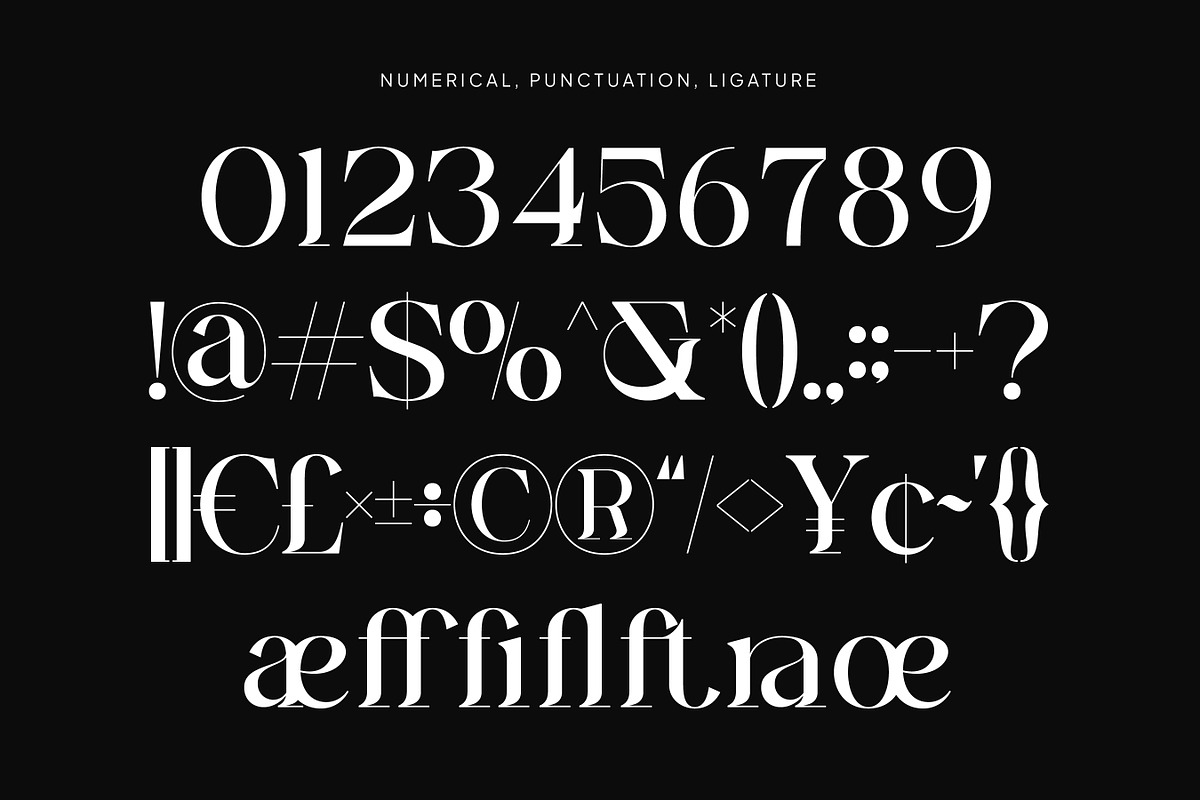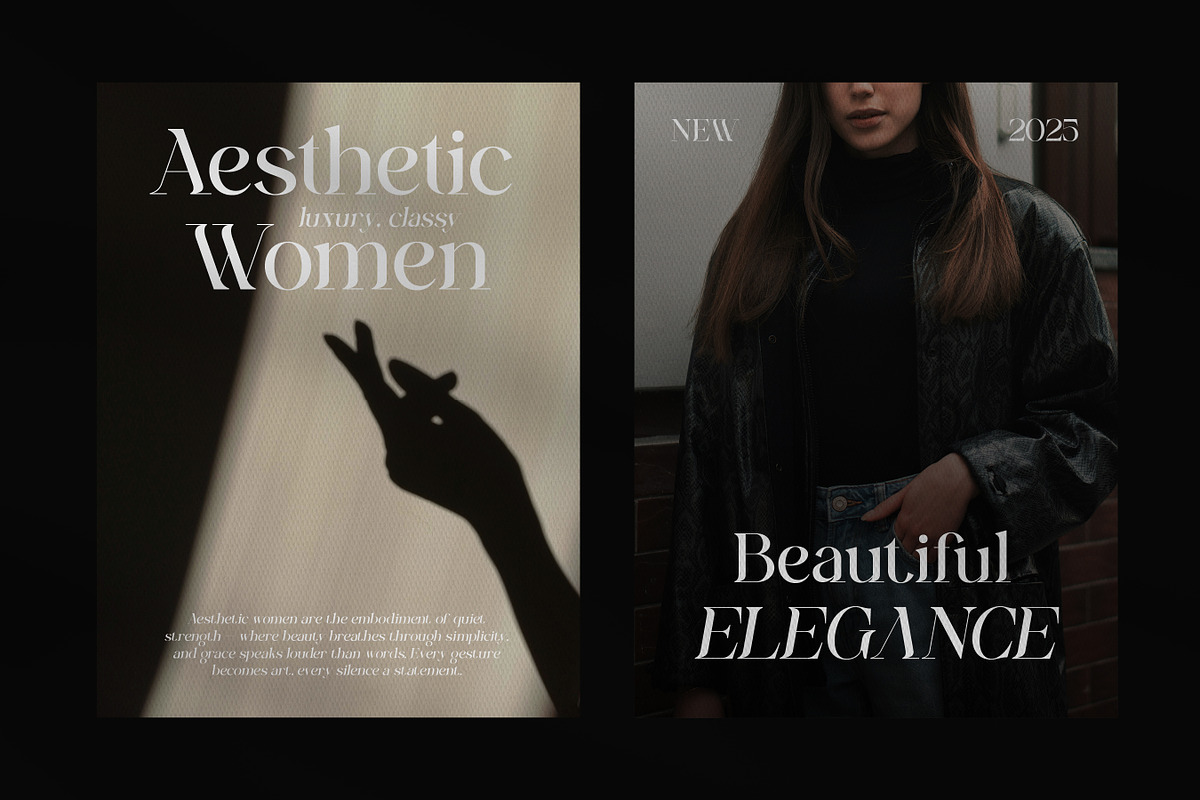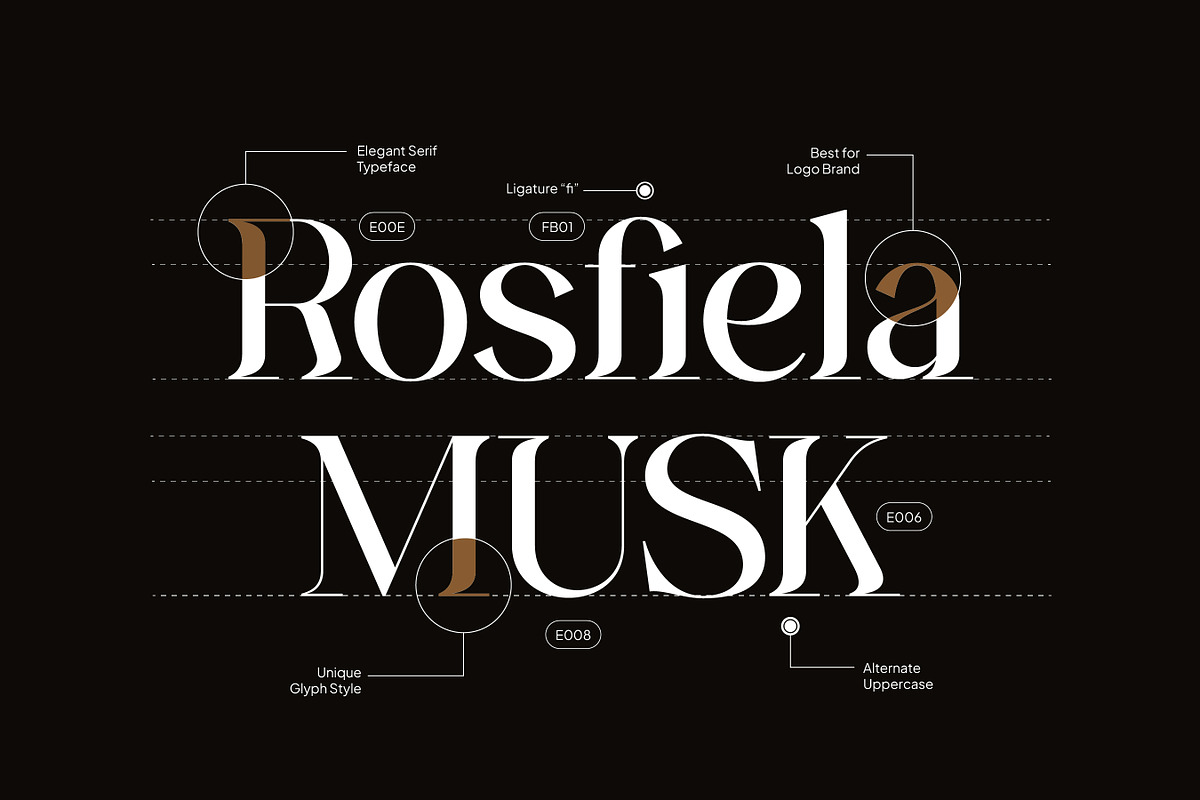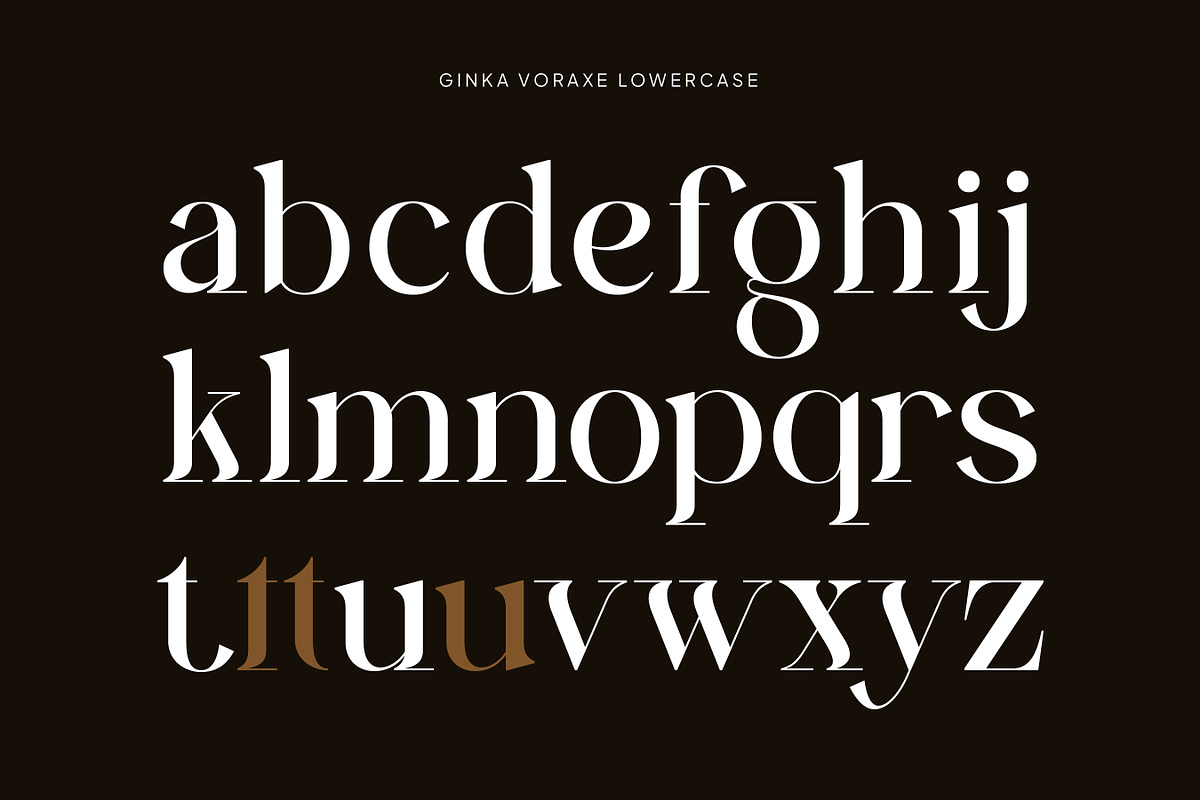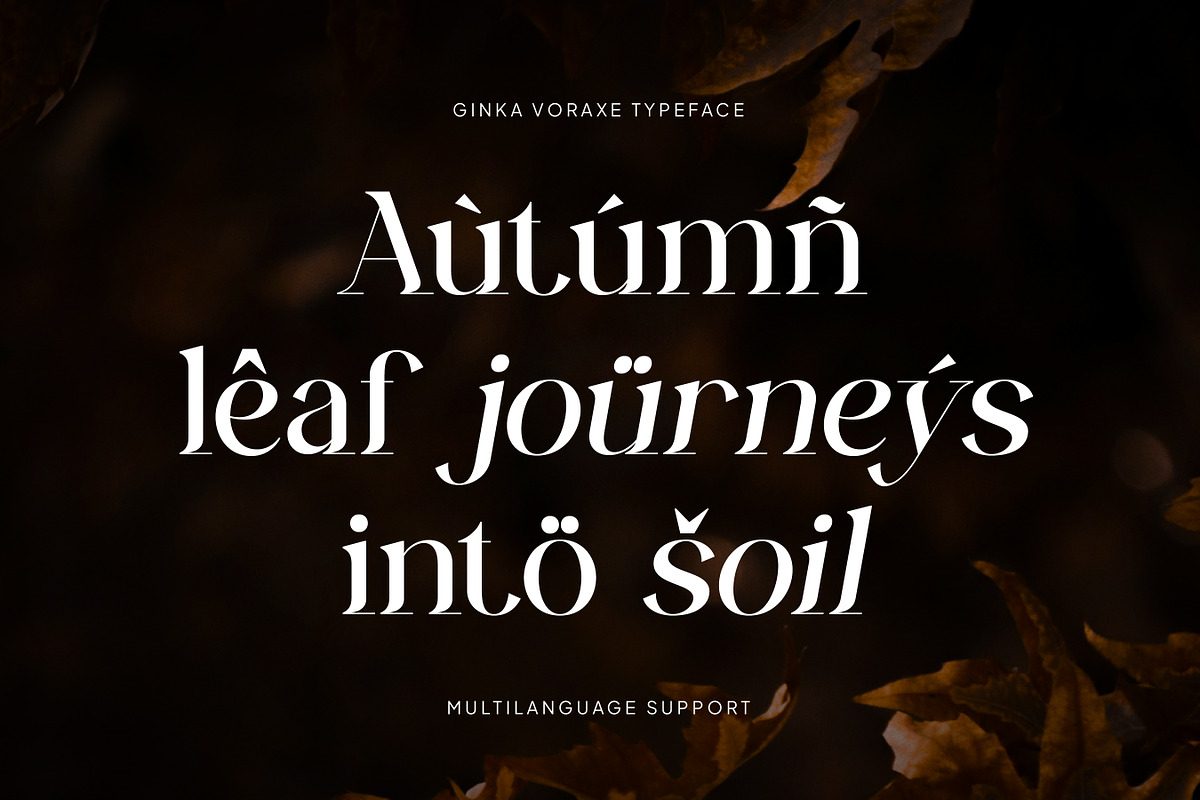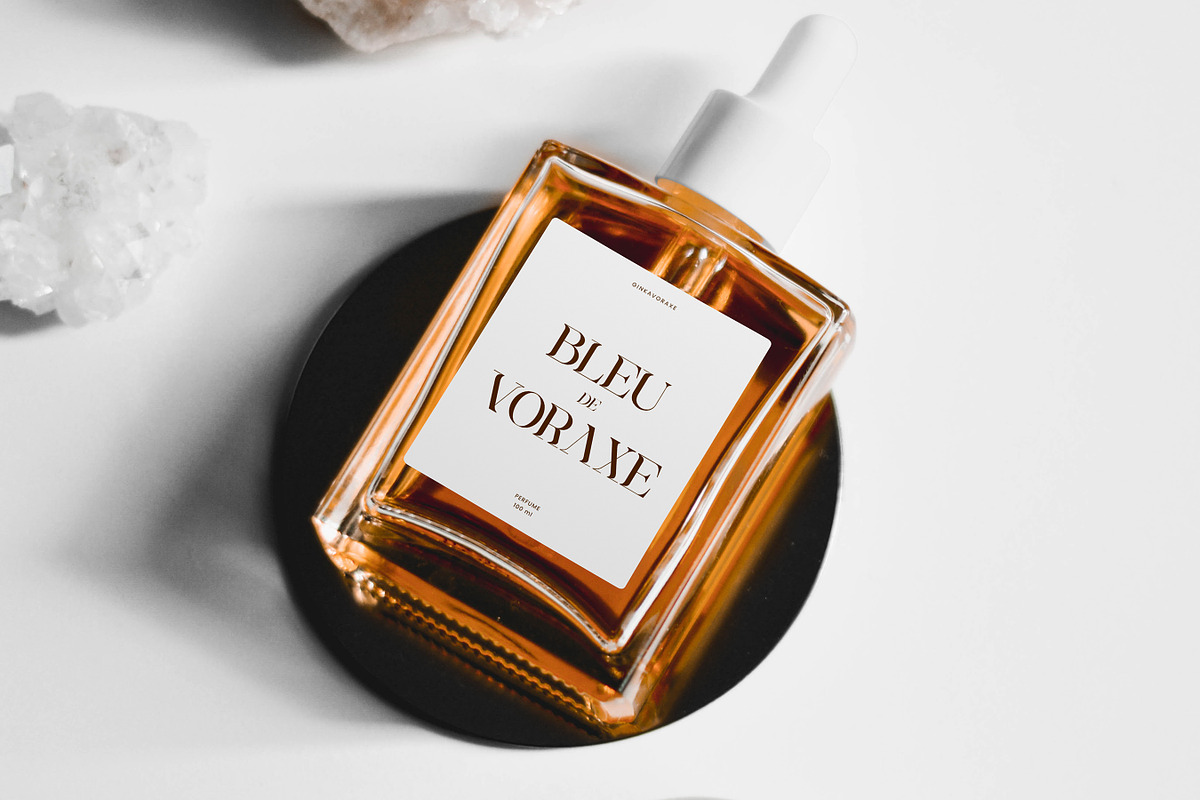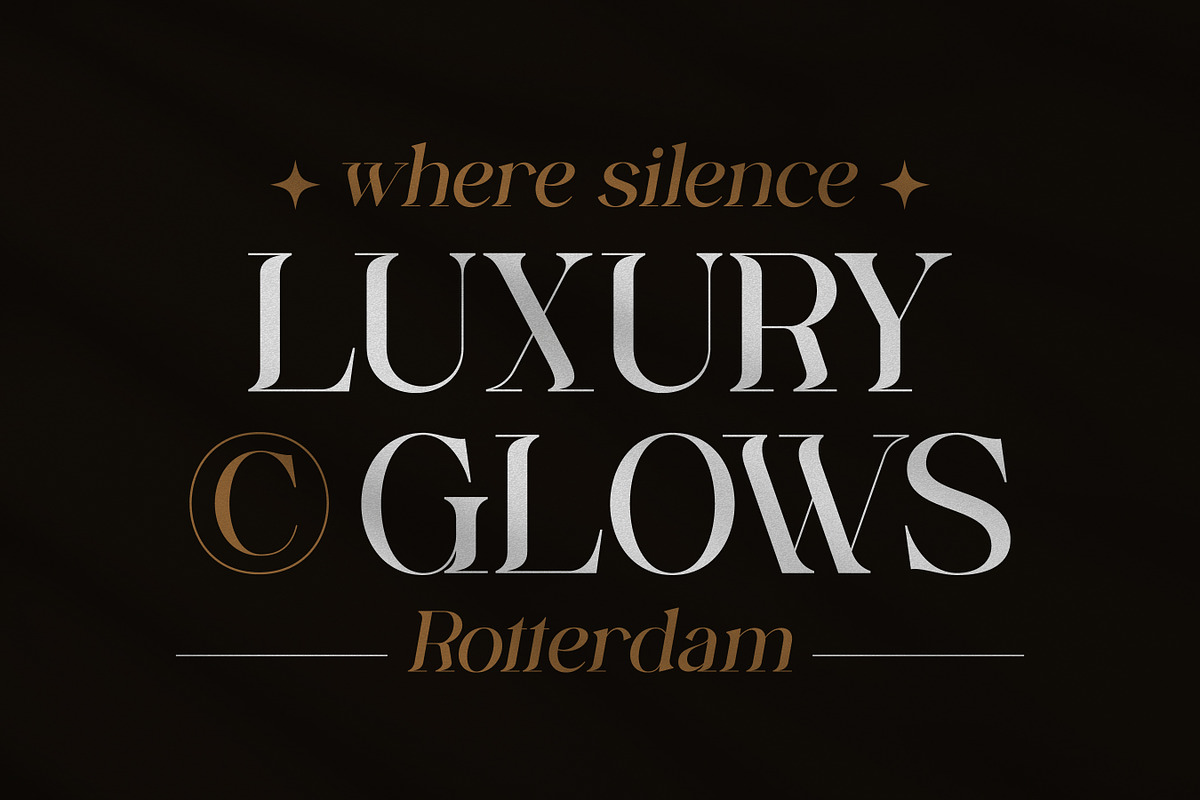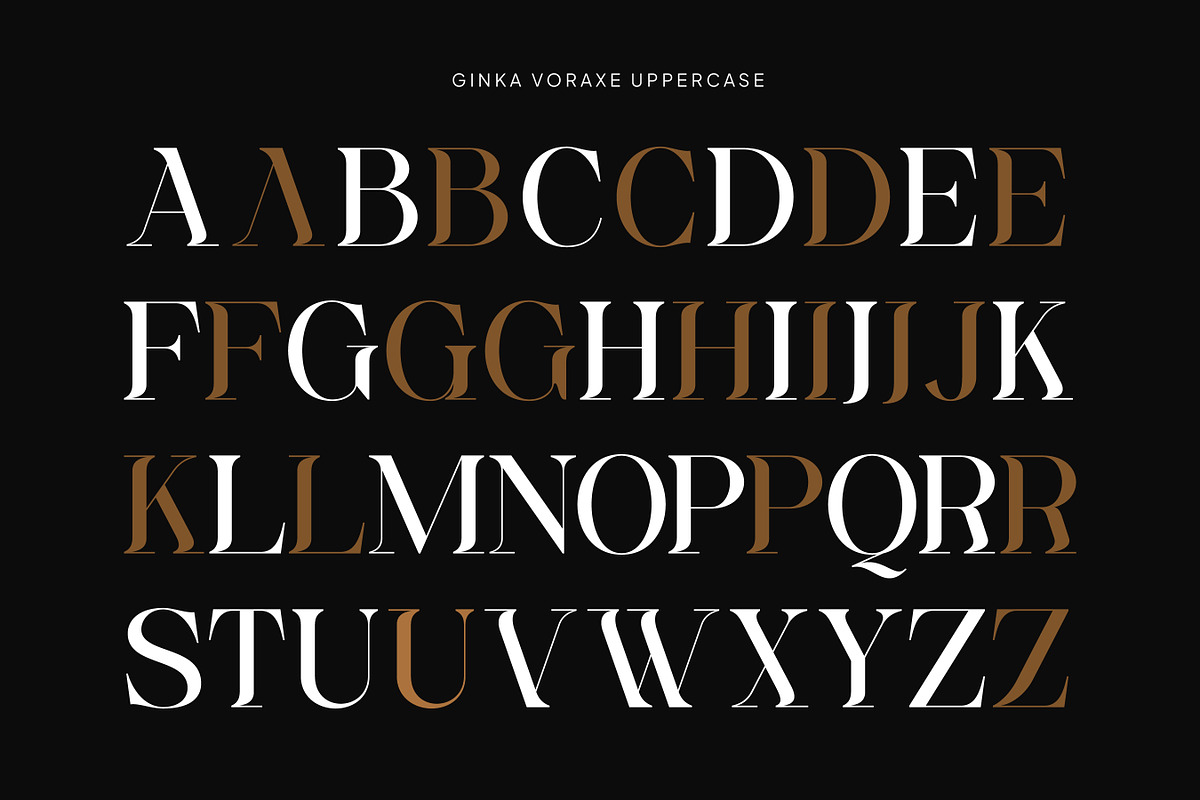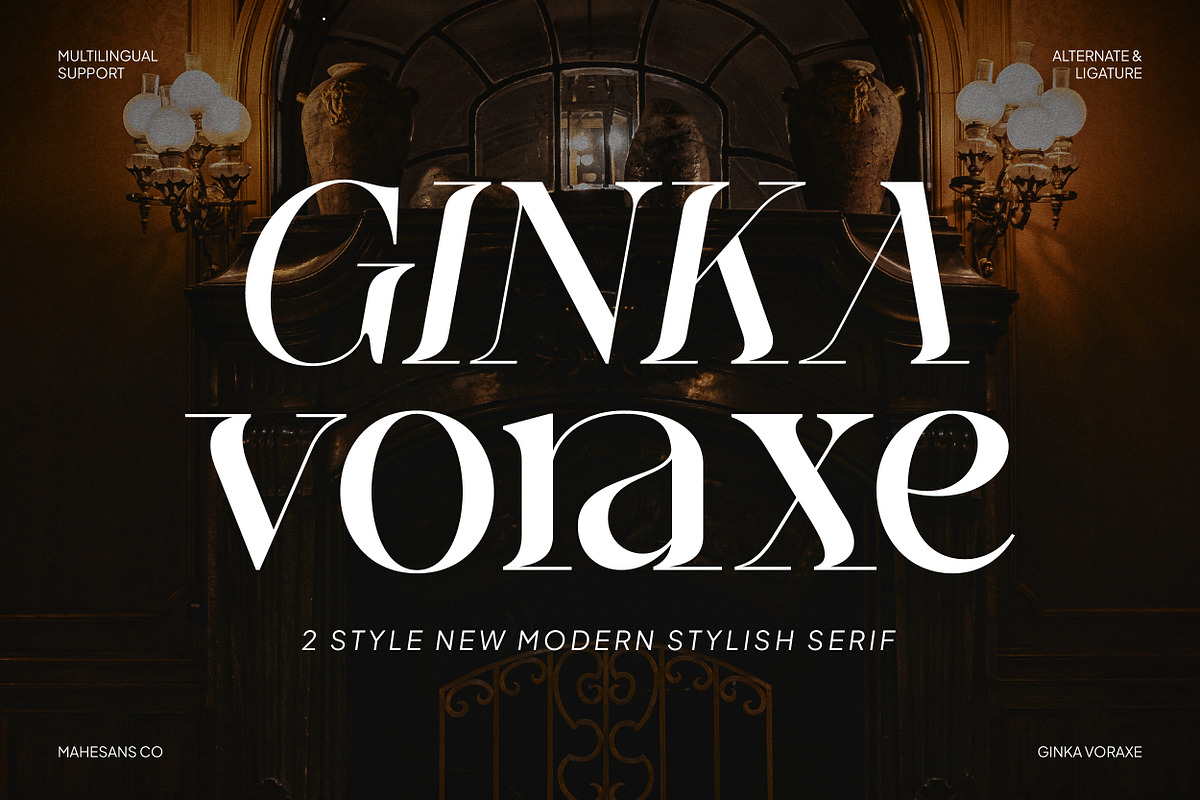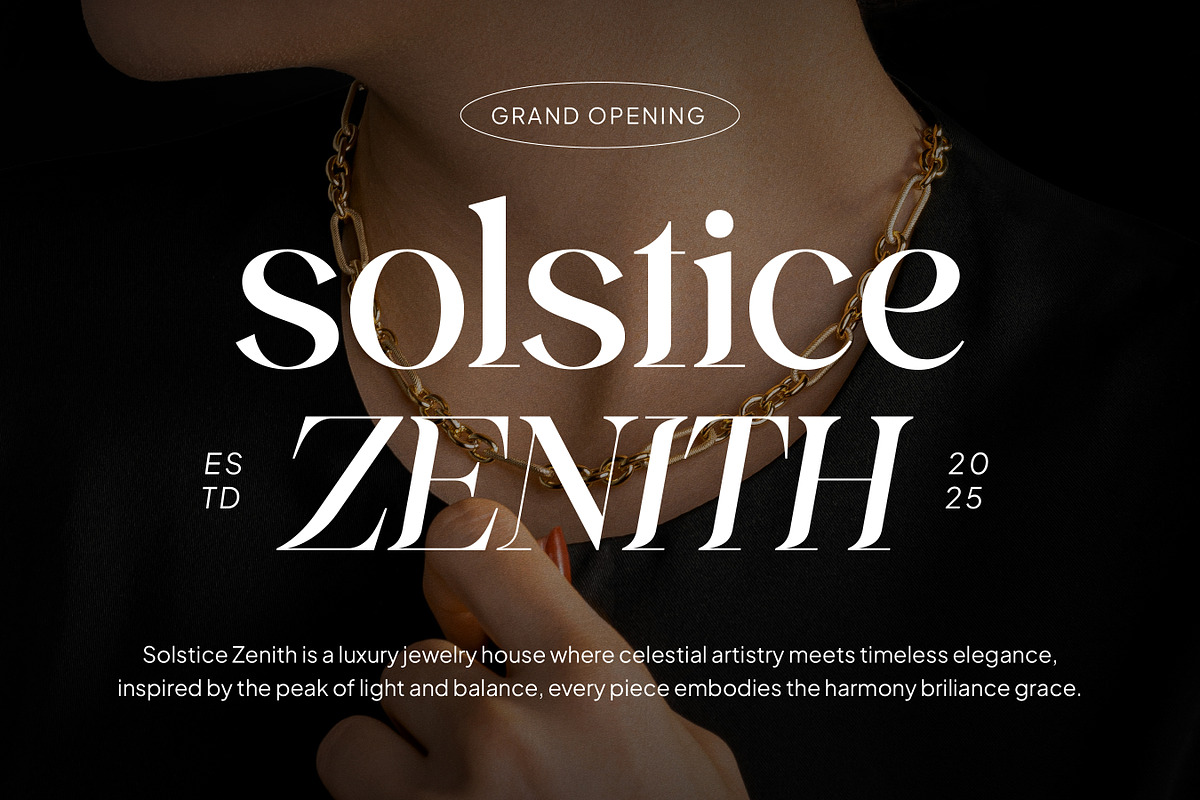
Ginka Voraxe – Modern Stylish Serif
Ginka Voraxe is a modern serif typeface that blends luxury with bold sophistication. Designed with high contrast strokes and elegant curves, it delivers a timeless yet contemporary feel — perfect for designs that demand style and confidence.
This typeface comes in 2 styles: Regular and Italic, featuring alternates and ligatures to give you versatile creative control. Whether for branding, editorial layouts, packaging, or high-end fashion projects, Ginka Voraxe adds a refined modern charm to your typography.
- Alternates &Ligatures
- Multilanguage
- Logo & Branding
- Editorial & Magazine Design
- Packaging & Product Design
- Posters & Headlines
- Fashion & Luxury Projects